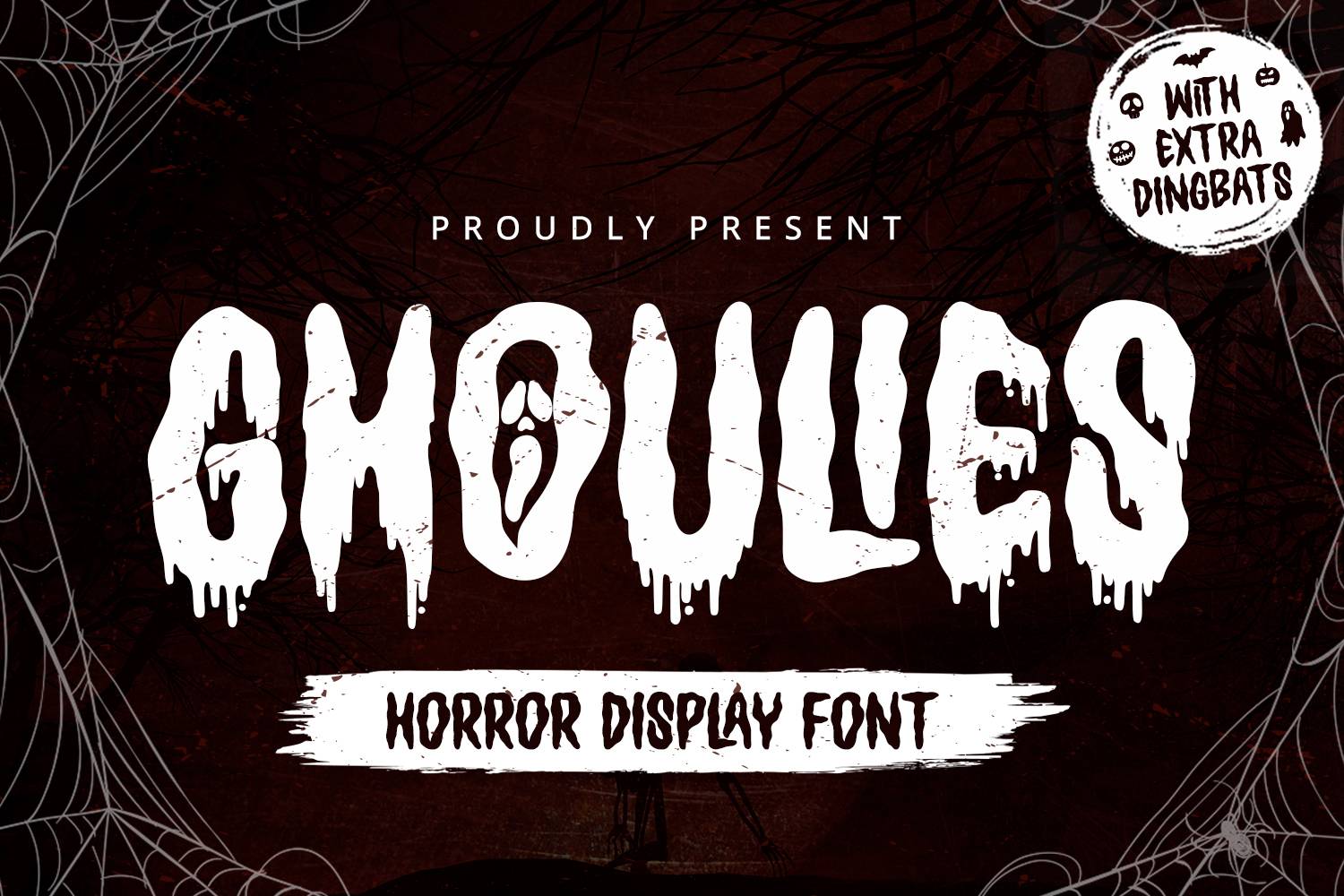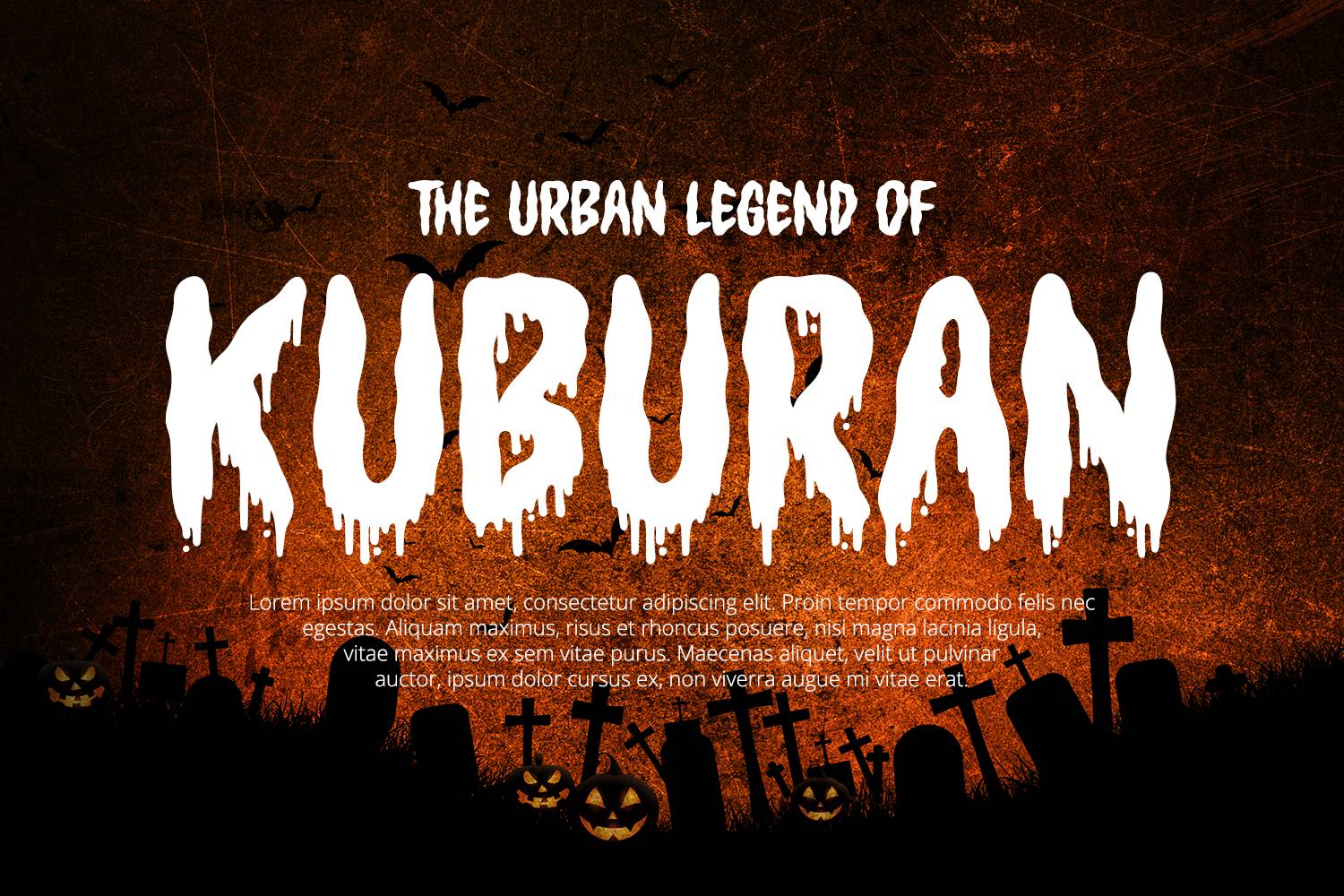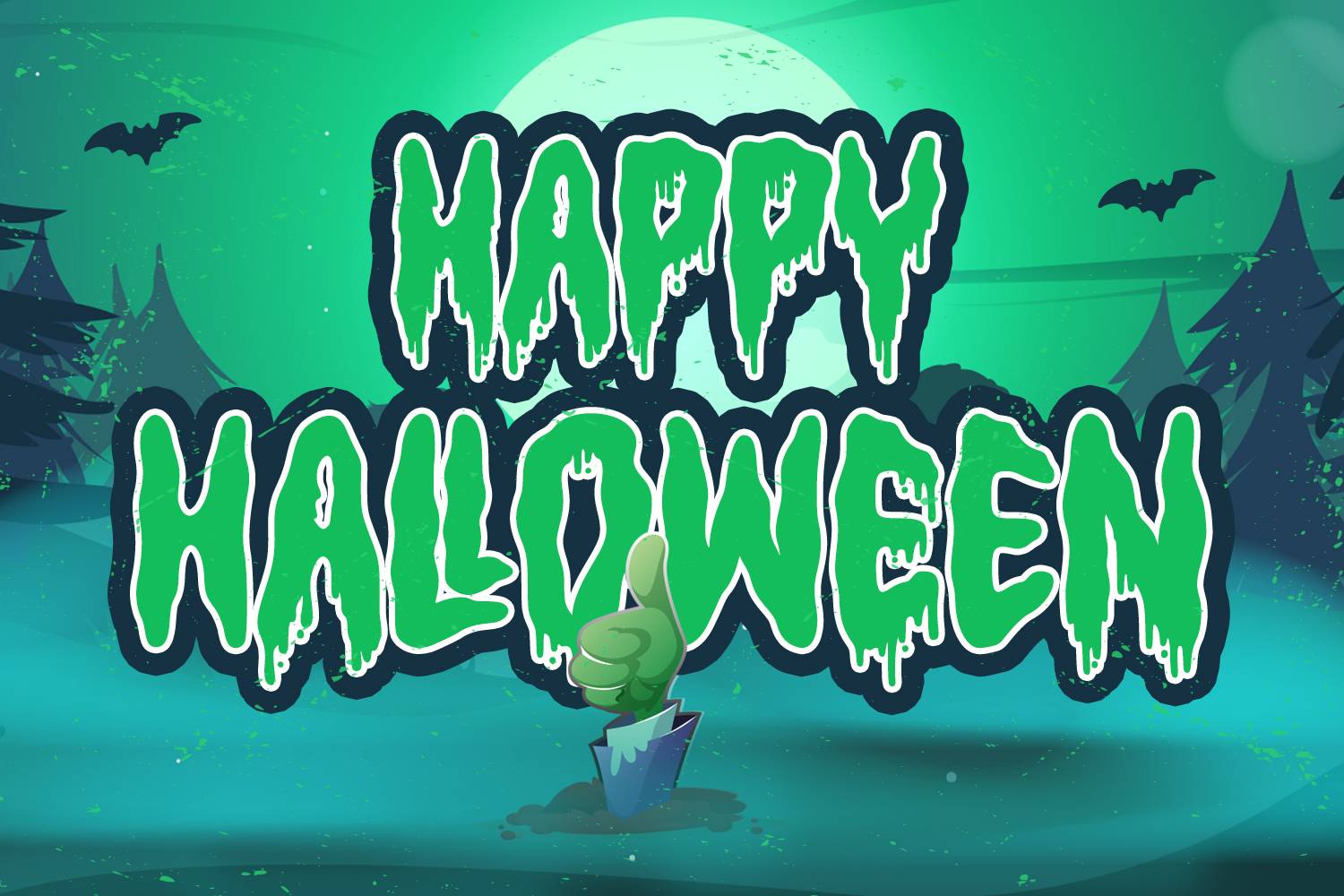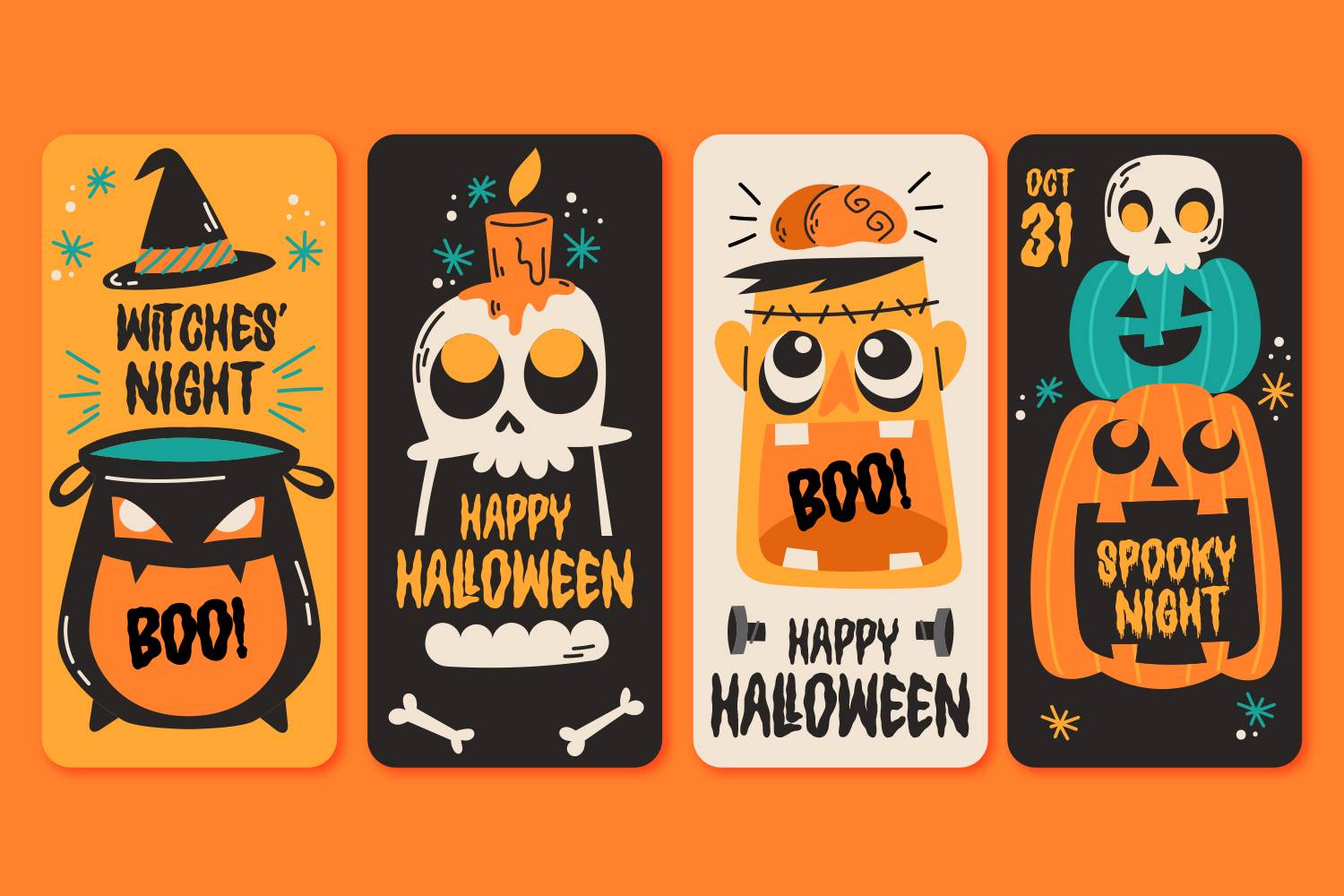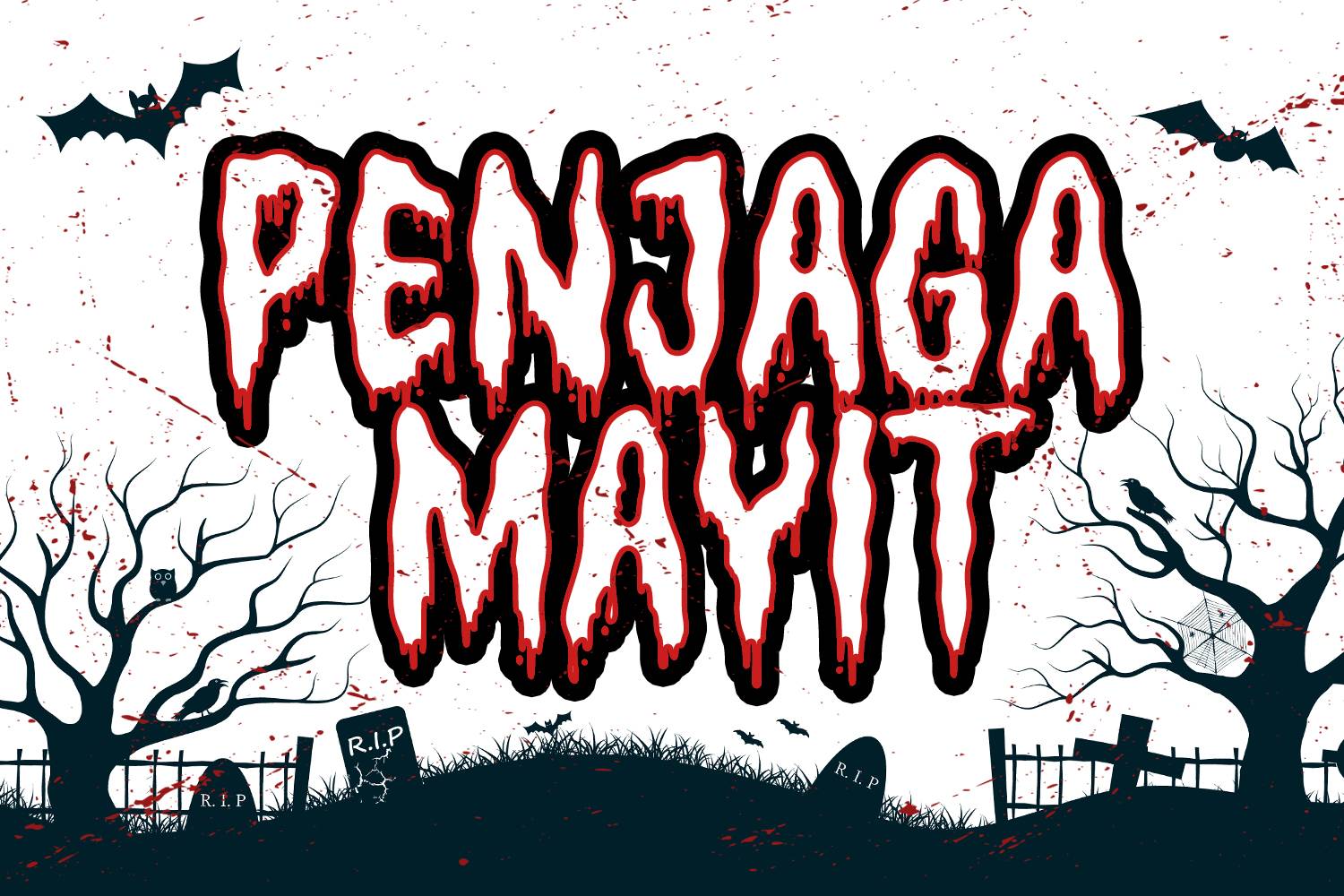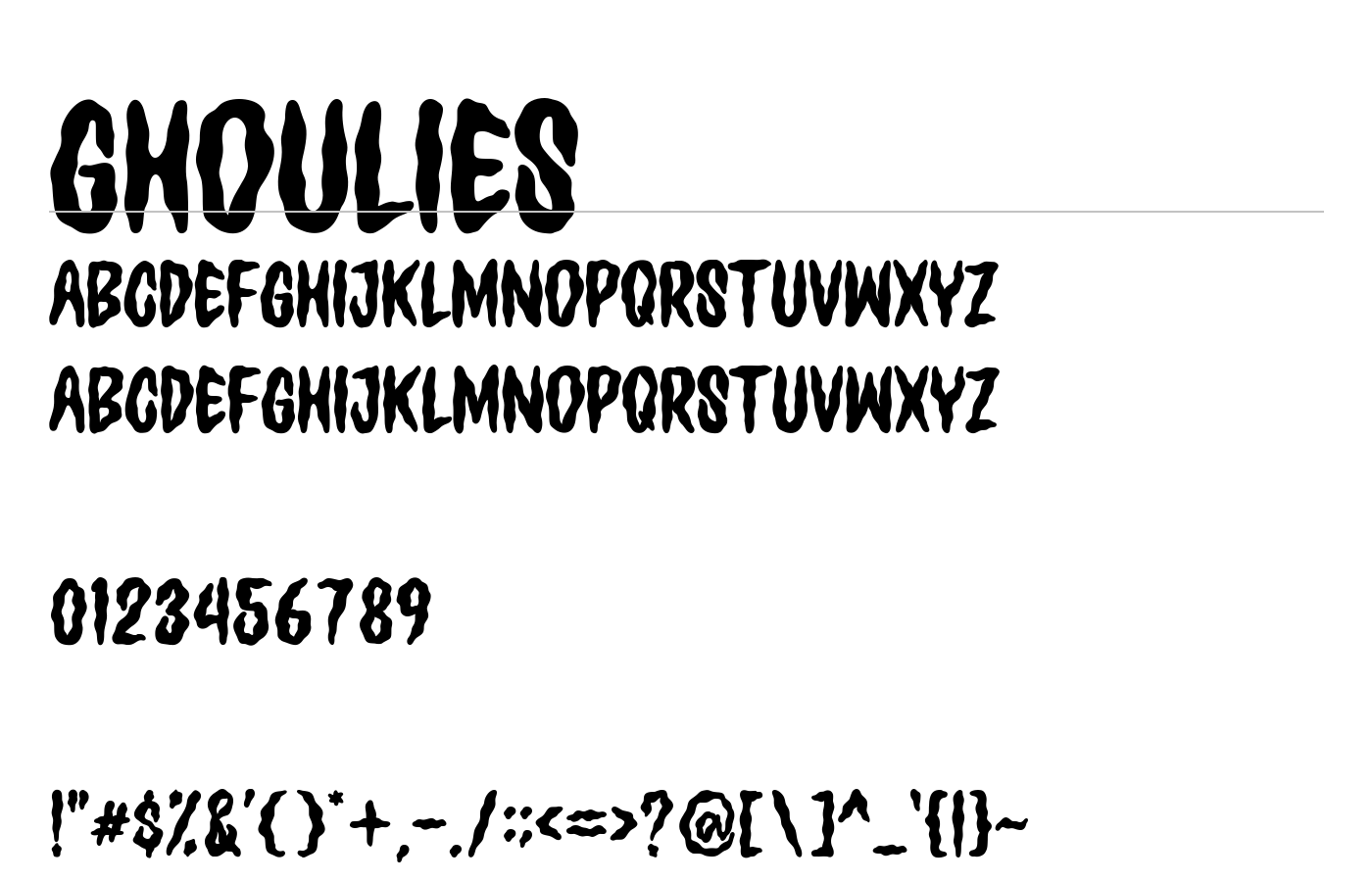
Ghoulies is a bold, hand-drawn display font with a spooky, textured style that evokes a creepy, horror-themed vibe. Its uneven, organic shapes and irregular edges make it perfect for Halloween designs, posters, or any project that needs a playful yet eerie atmosphere. This font works best in large sizes for titles or headlines, where its distinctive character can stand out and create a memorable impression.
Ghoulies Font
About Ghoulies Font